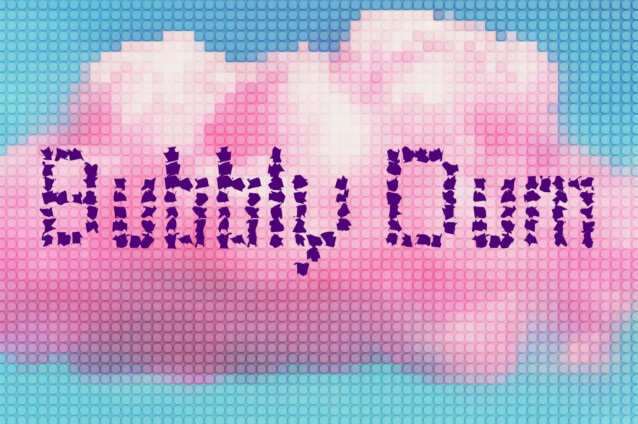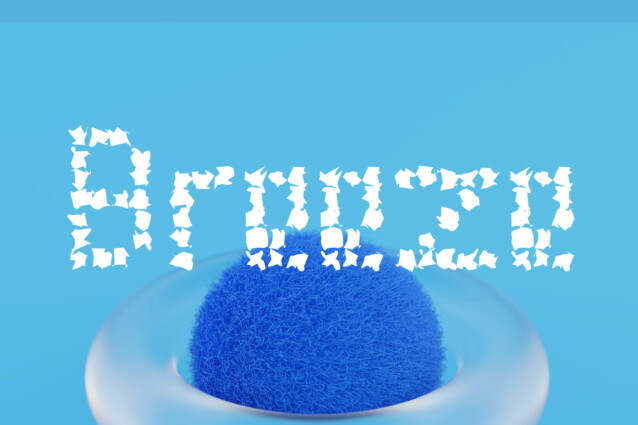
Zerpixl Dark Font
Zerpixl Dark Font is a pixelated and fun display font, perfect for futuristic projects, tech-related items, or anything bold and creative.